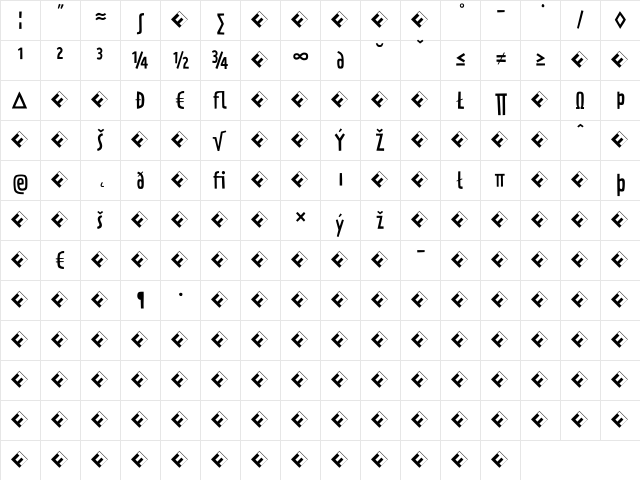
PraterBlockOne-FillExpert Regular
| Foundry | Steffen Sauerteig, Henning Wagenbreth, published by Fontshop International for the FontFont library |
Design Context for PraterBlockOne-FillExpert Typeface
PraterBlockOne-FillExpert offers clean, dependable letterforms without strong stylistic allegiance, making it a practical choice for designers who need flexibility.